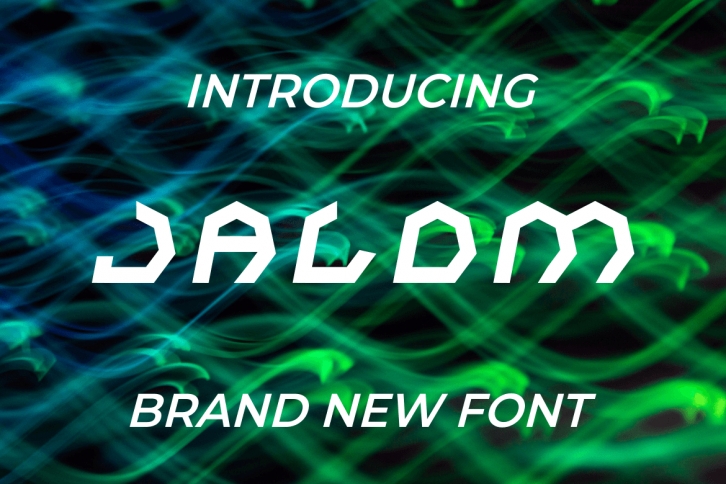
Jalom is a cool and interesting display font. Masterfully designed to become a true favorite, this font has the potential to bring each of your creative ideas to the highest level!